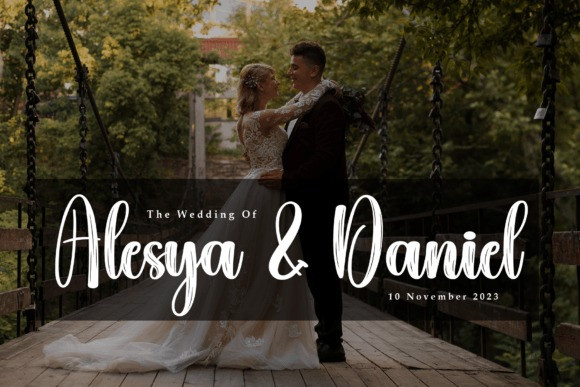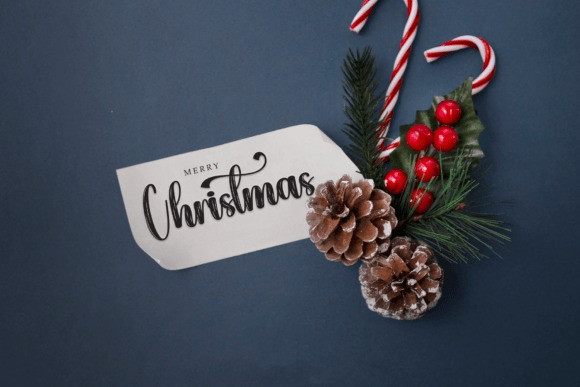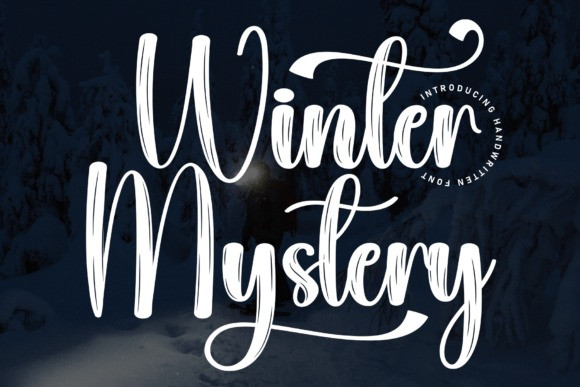
Mystery Winter Font
Winter Mystery Font is a sweet and friendly handwritten font. Its natural and unique style makes it incredibly fitting to a large pool of designs. The only limit is your imagination!